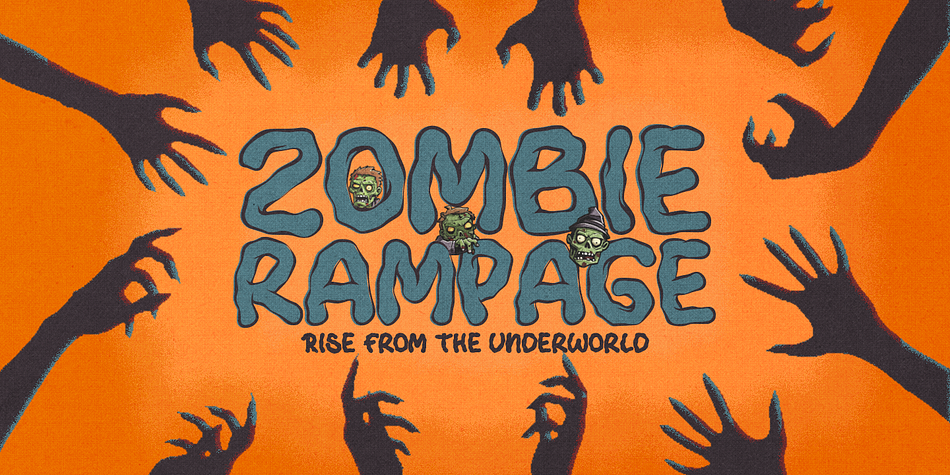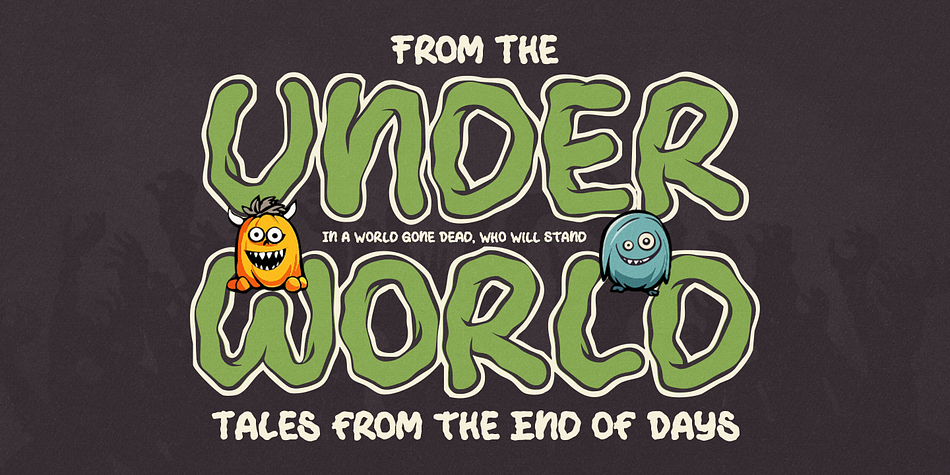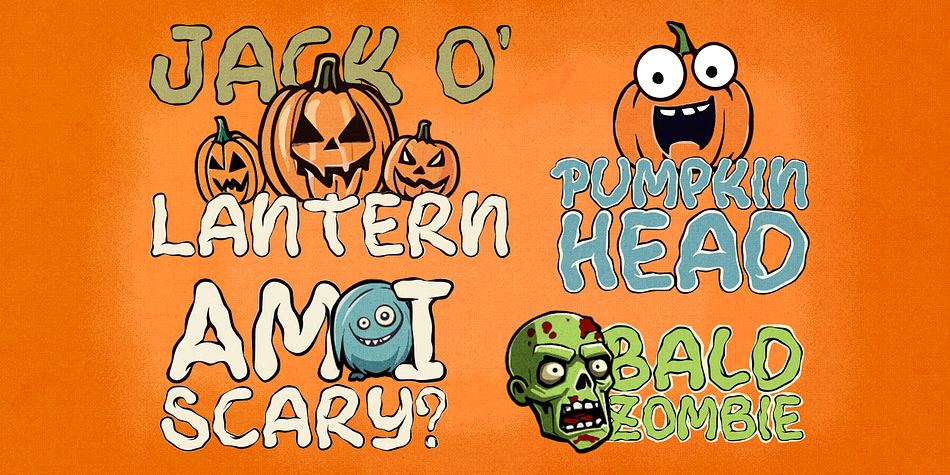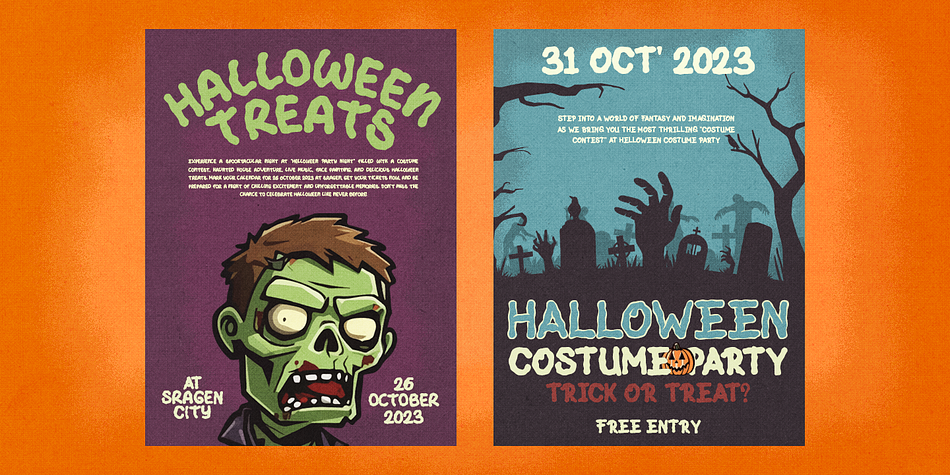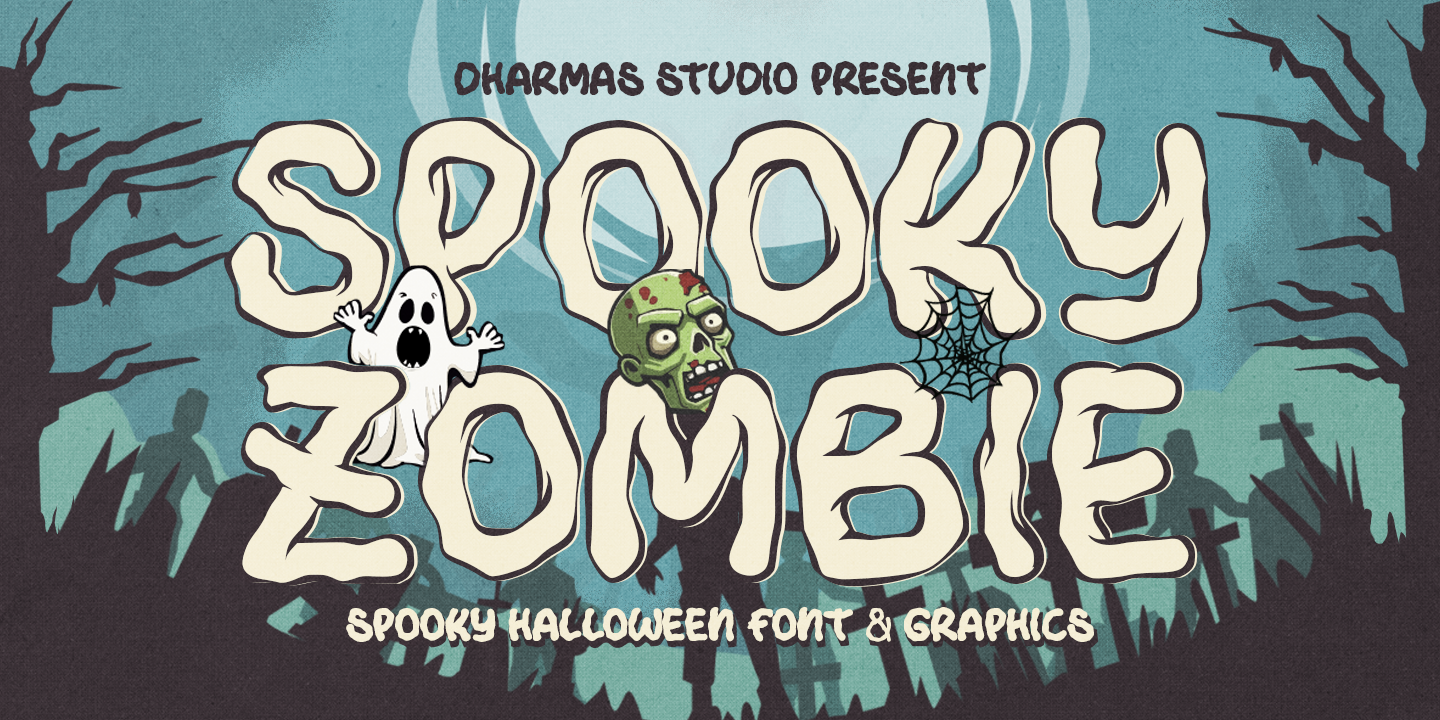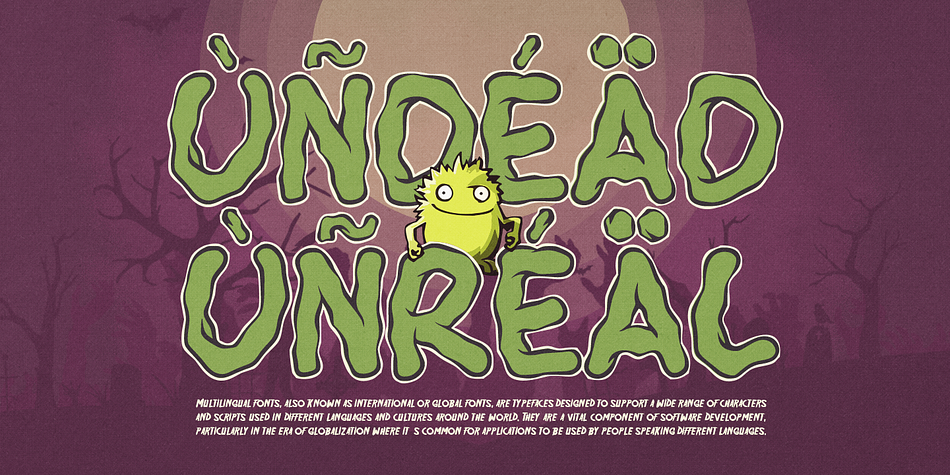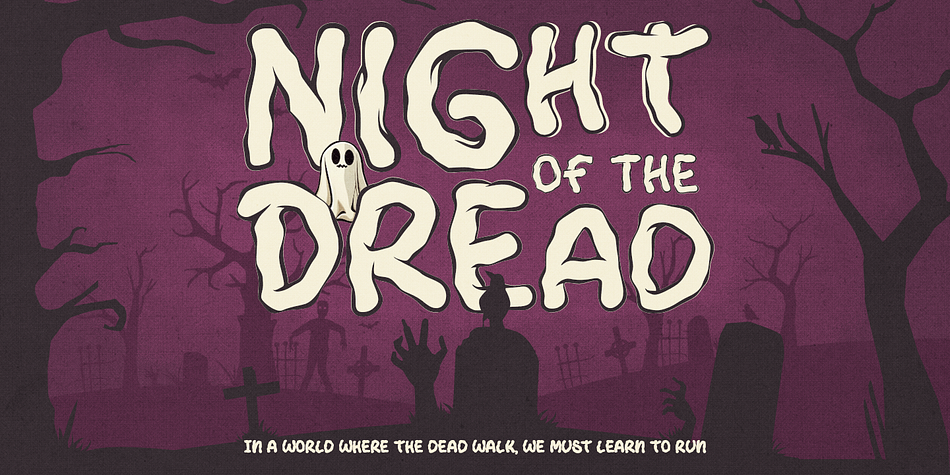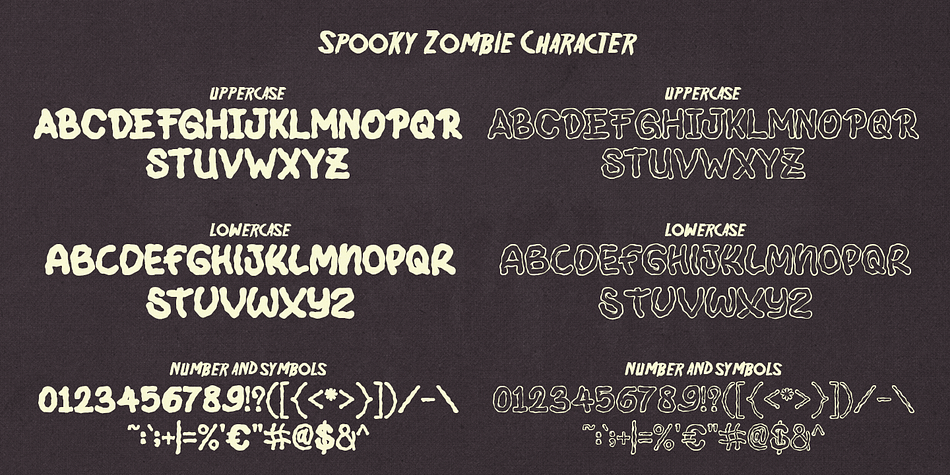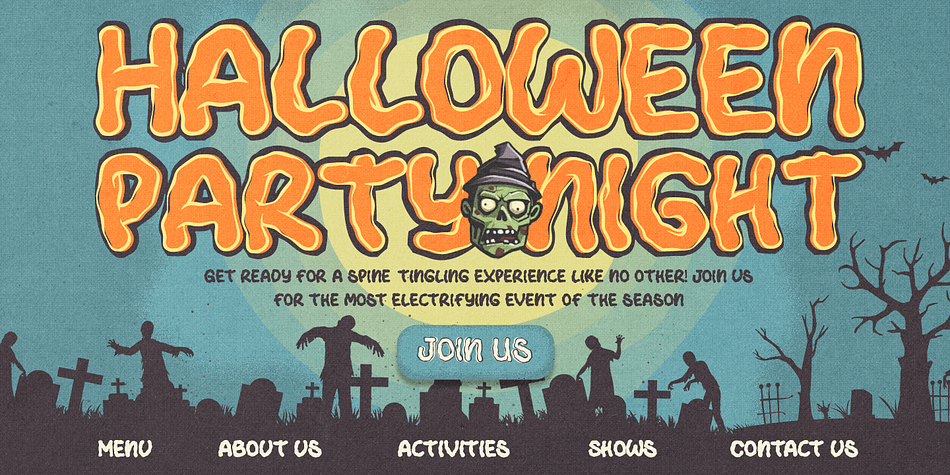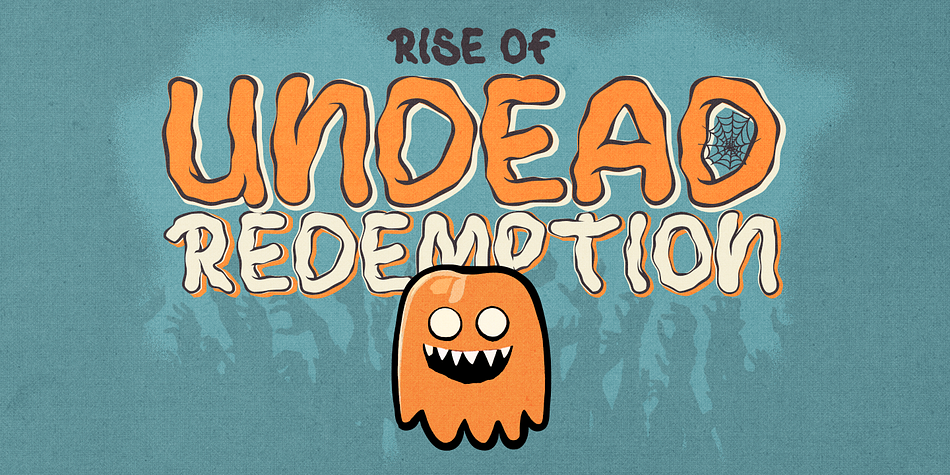
Spooky Zombie
Spooky Zombie is a hand display font family. This typeface has two styles and was published by Dharmas Studio.
Introducing SPOOKY ZOMBIE! A font that’s ready to cast a spooky spell on your designs. This eerie display font is the perfect choice for all your Halloween-related projects and crafty ideas. Plus, we’ve included an Outline version of the font as a little bonus.
When you get Spooky Zombie, you’ll also receive 26 spook-tacular Halloween doodles that perfectly complement your hair-raising projects!
- Regular and Outline version
- Unique Letterforms